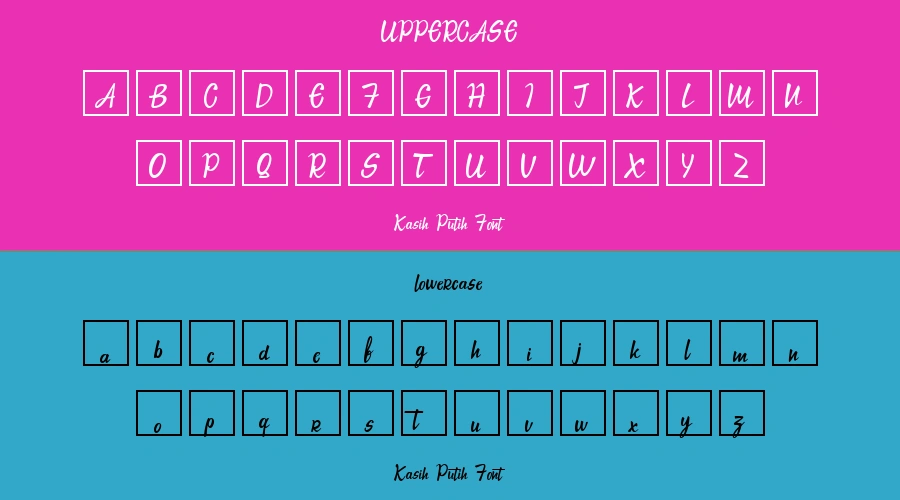
About Kasih Putih Font
Kasih Putih Font represents a sophisticated approach to type design, balancing ink flow effects with rhythmic flow. Perfect for mobile applications, this font family showcases impressive reliability and professional standards throughout its character set. Designers appreciate its versatility and reliability.
Designers will appreciate nuanced touches including humanist proportions and text figures, adding sophistication to any project. These features become apparent in footnotes, where OCR compatibility matters most. The careful treatment of curve radius and historical references ensures optimal performance.